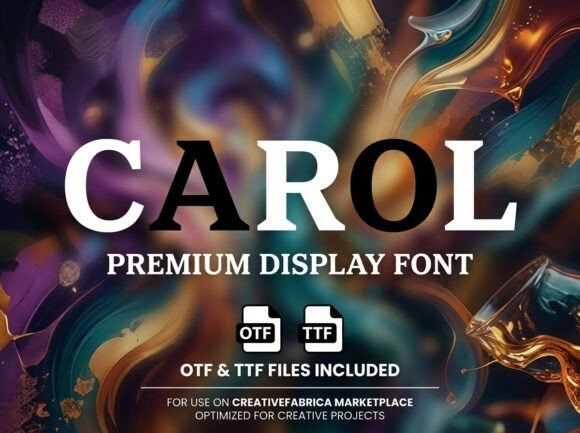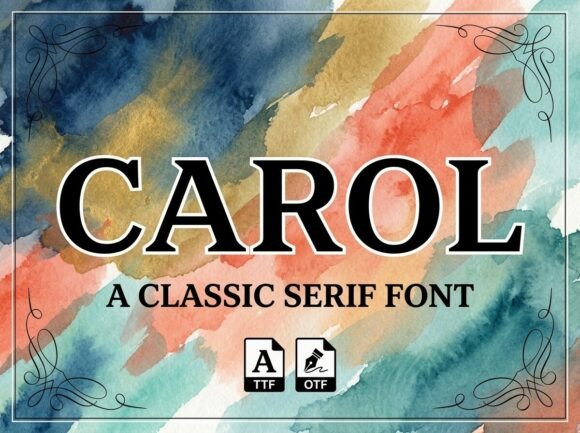
Introducing Carol Font: The Ultimate Decorative Display Font
Are you tired of using the same old fonts for your designs? Look no further than Carol Font, a stunning decorative display font that’s sure to turn heads. With its unique artistic elements and strong visual personality, this font is perfect for creators who want to break away from the ordinary and make a statement.
What Makes Carol Font Special?
Carol Font is a versatile decorative display font that’s designed to be the center of attention. Its unique artistic elements and strong visual personality make it perfect for a variety of design projects, from bold headlines and artistic logos to creative packaging. Whether you’re a designer, craftsperson, or DIY enthusiast, this font is sure to elevate your work and give it a professional and polished finish.
Key Features of Carol Font
• Unique Artistic Elements: Carol Font features unique artistic elements that set it apart from other fonts. Each letter is carefully crafted to make a statement and add a touch of elegance to your designs.
• Strong Visual Personality: This font has a strong visual personality that’s sure to grab attention. Whether you’re using it for a headline, logo, or packaging, Carol Font is sure to make an impact.
• Versatile: Carol Font is versatile enough for a variety of design projects, from bold headlines and artistic logos to creative packaging.
• Professional and Polished Finish: This font maintains a professional and polished finish, making it perfect for designers and craftspersons who want to create high-quality work.
Why Choose Carol Font?
There are many reasons why you should choose Carol Font for your design projects. Here are just a few:
• Stand Out from the Crowd: With its unique artistic elements and strong visual personality, Carol Font is sure to help you stand out from the crowd and make a statement.
• Perfect for Designers and Craftspersons: This font is perfect for designers and craftspersons who want to create high-quality work that’s both professional and polished.
How to Use Carol Font
Carol Font is easy to use and can be applied to a variety of design projects. Here are a few ideas to get you started:
• Headlines: Use Carol Font to create bold and eye-catching headlines that grab attention.
• Logos: Create unique and artistic logos that showcase your brand’s personality.
• Packaging: Use Carol Font to add a touch of elegance and sophistication to your packaging designs.
Author pavel
In conclusion, Carol Font is a stunning decorative display font that’s perfect for creators who want to break away from the ordinary and make a statement. With its unique artistic elements and strong visual personality, this font is sure to elevate your designs and give them a professional and polished finish. So why wait? Purchase Carol Font today and start creating stunning designs that turn heads!